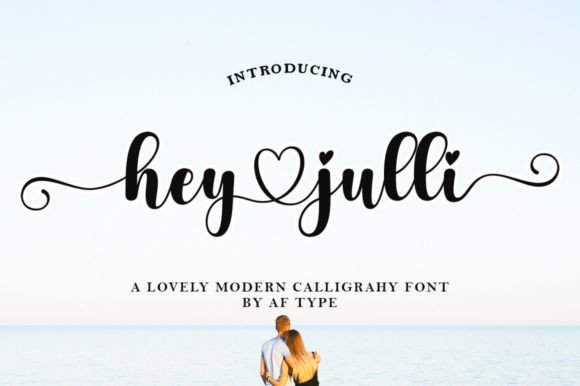
Introducing Hey Julli, the captivating script typeface that will ignite your imagination and elevate your creations! Experience the allure of a bygone era with its graceful curves and romantic charm. Each character dances along the baseline, evoking a sense of nostalgia and timeless elegance. Perfectly suited for minimalist logos, Hey Julli's delicate touch will add a touch of sophistication to your designs.
Escape the mundane and embrace the enchanting world of Hey Julli. Picture your logo adorned with its graceful letters, capturing attention and leaving an unforgettable impression. Its versatile nature makes it ideal for branding, invitations, posters, and any project that yearns for a touch of romance.
Imagine the joy of crafting heartfelt letters with Hey Julli, each word imbued with a touch of nostalgia. Watch as your social media posts come alive with its charming presence, engaging your audience with its disarming allure. Hey Julli is not just a font; it's an invitation to express your creativity with passion and authenticity.
Discover the power of Hey Julli today and unlock a world of design possibilities that will captivate hearts and ignite imaginations. Let its romantic spirit guide your projects and create a lasting impression that transcends time.